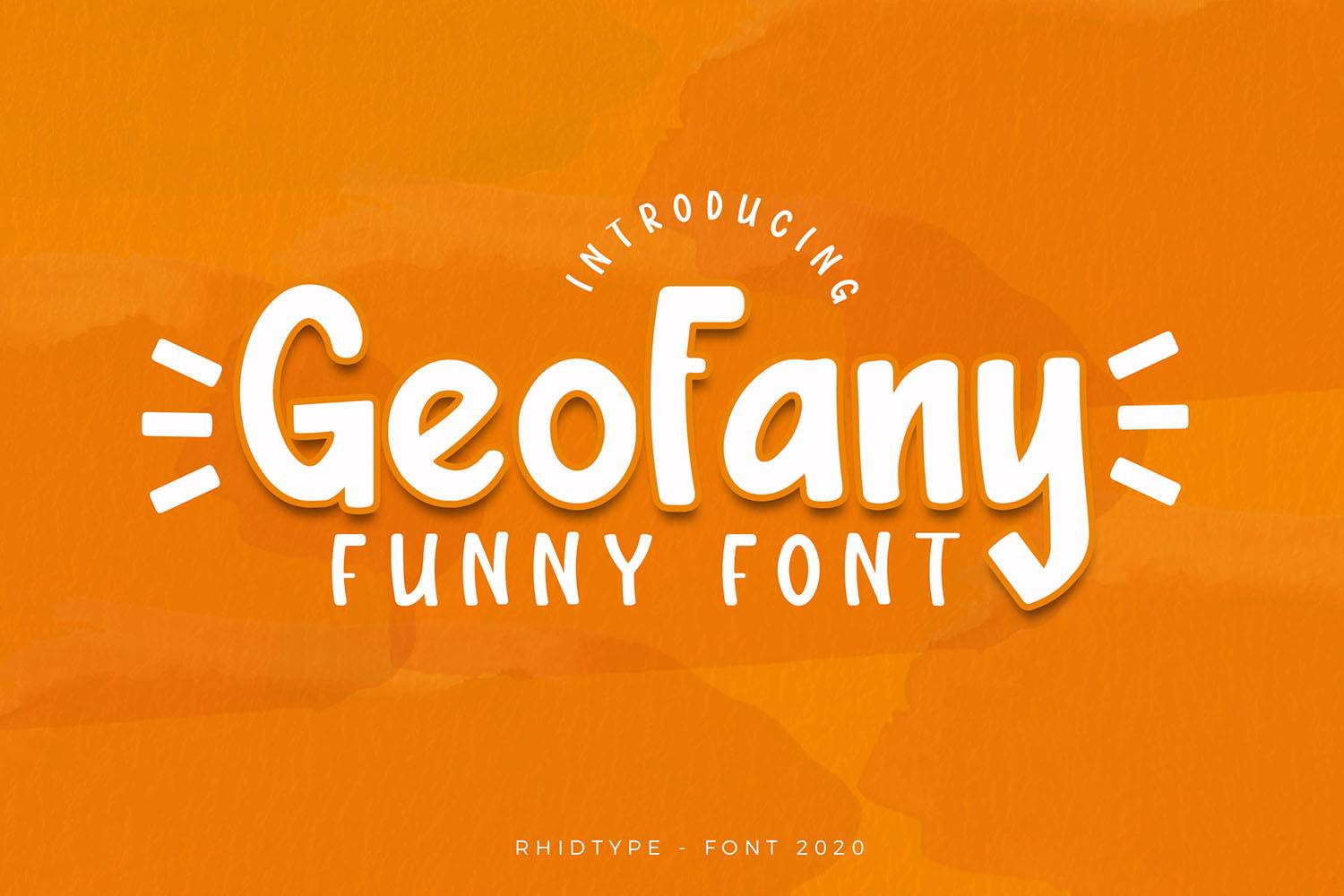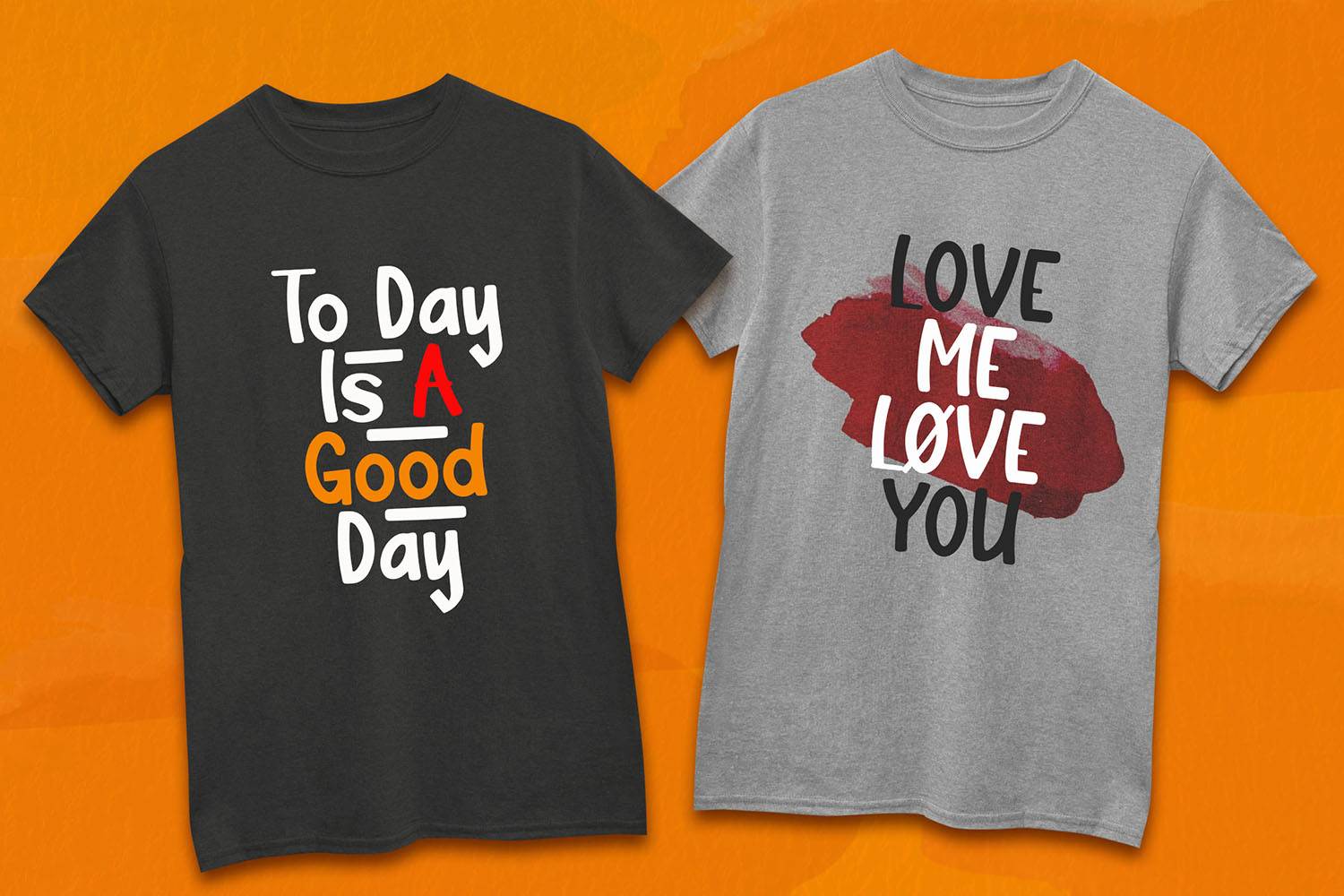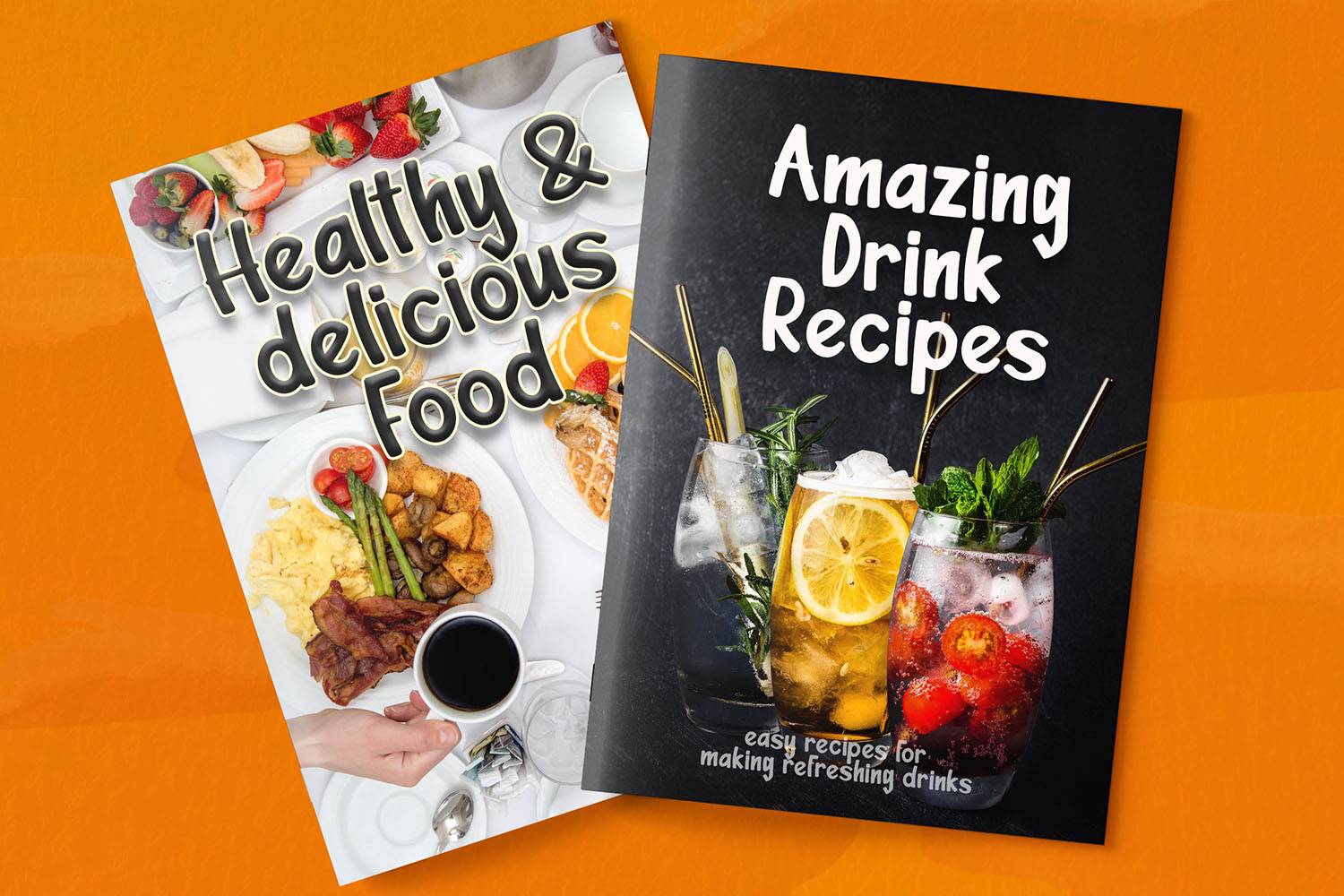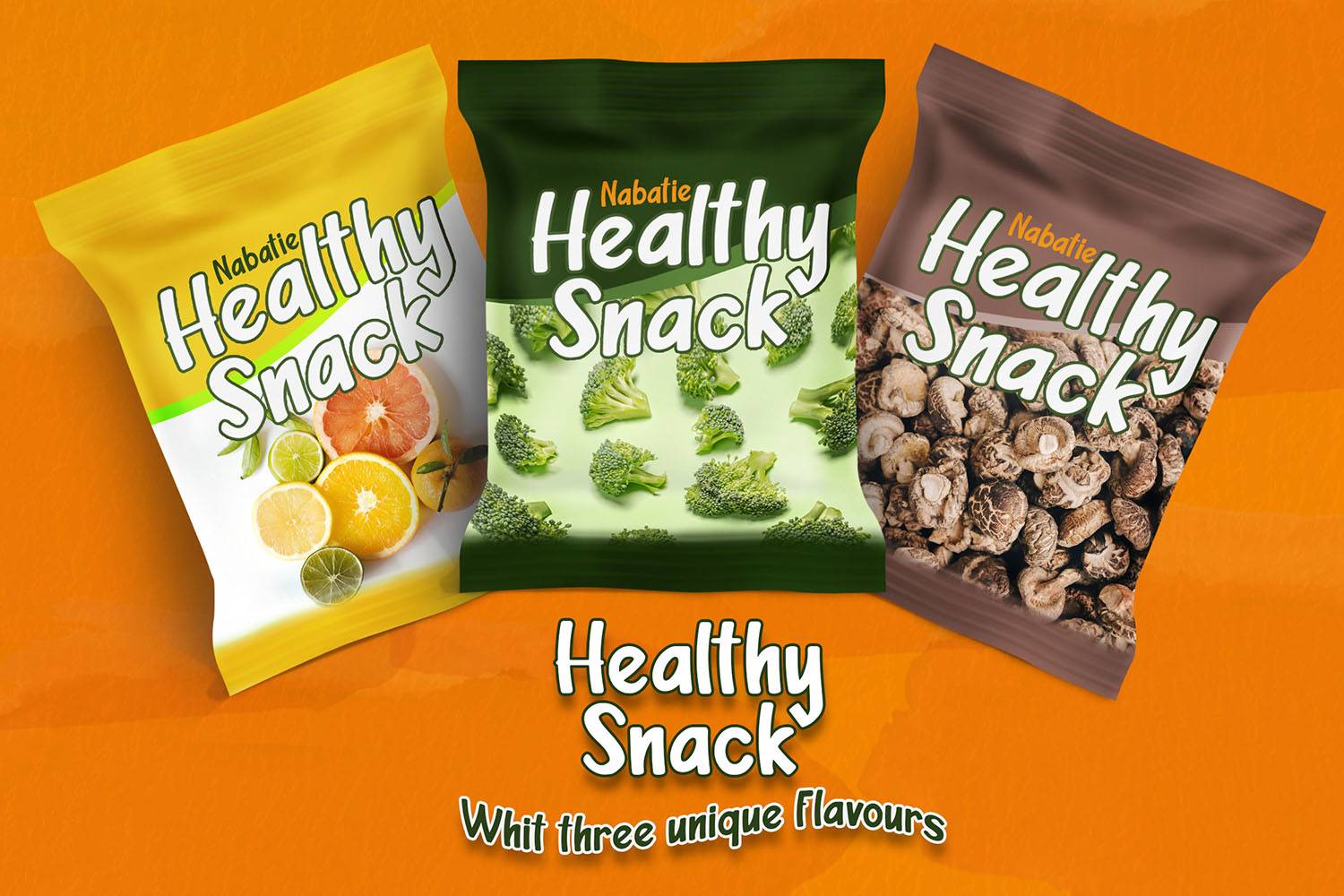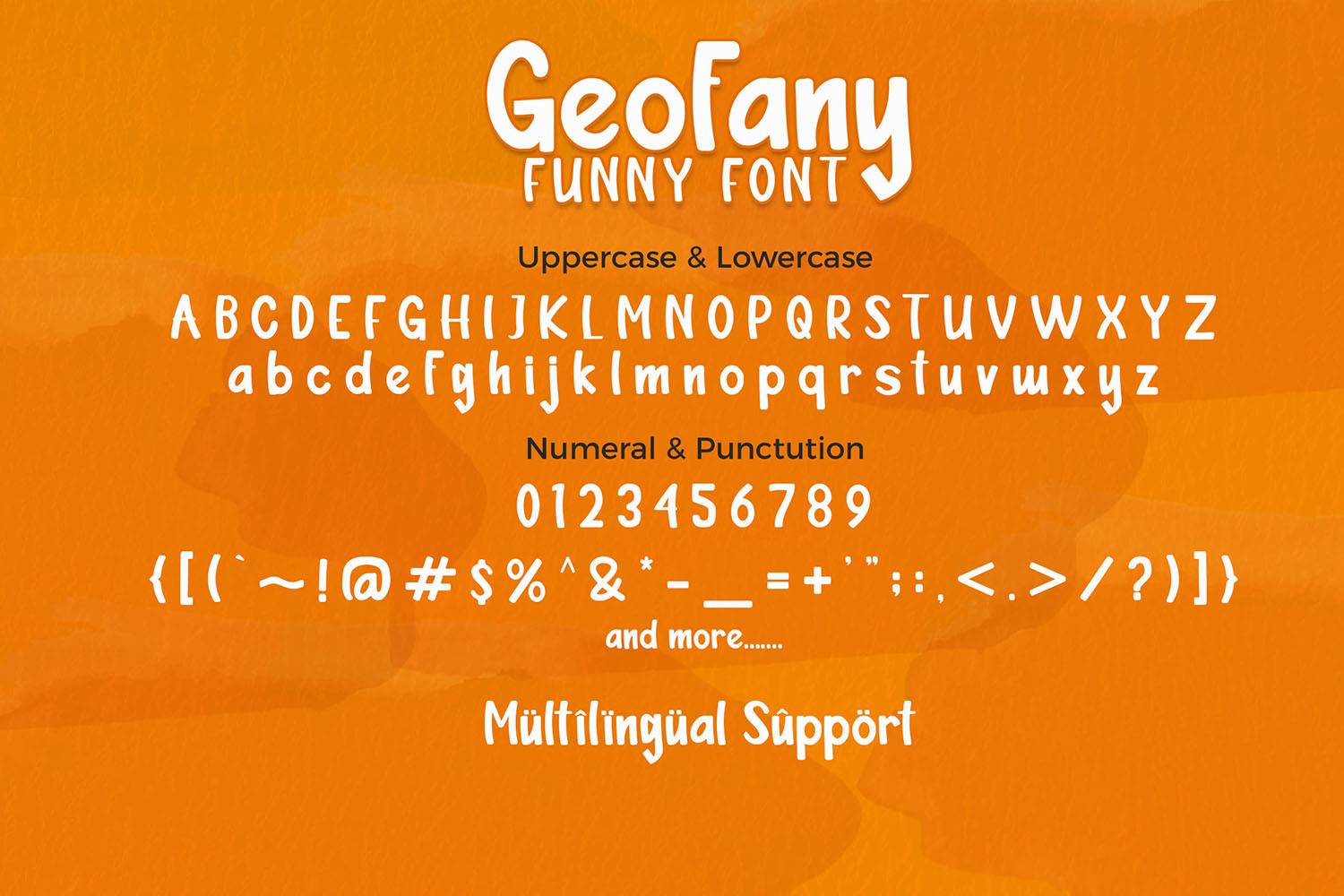
Geofany is a playful and friendly sans serif font with a casual handwritten feel. Its rounded, slightly irregular letterforms and medium weight give it a warm and approachable personality, making it ideal for informal, creative, and fun design projects. This font works well in children’s books, casual branding, and any context where a lively and inviting tone is desired.
Geofany Font
About Geofany Font
| Font family | Geofany Font |
| Designer | Repi Hilmana |
| Trademark | RHIDTYPE |